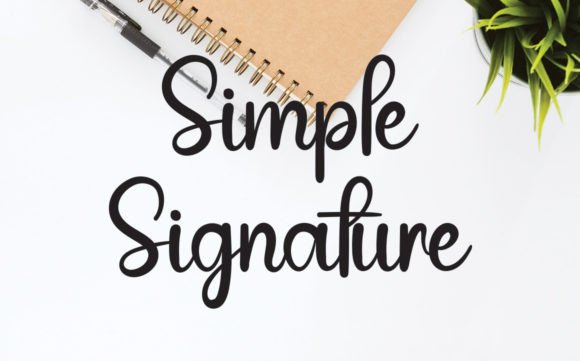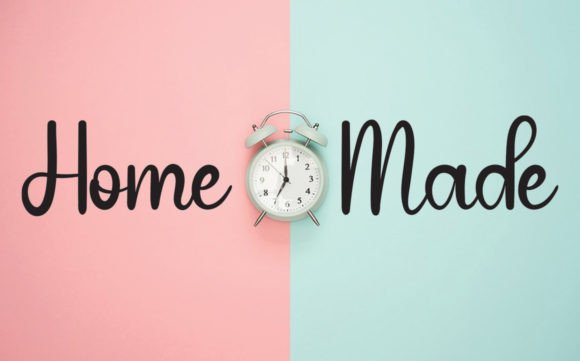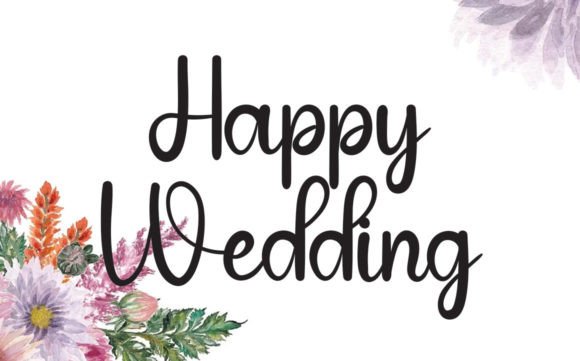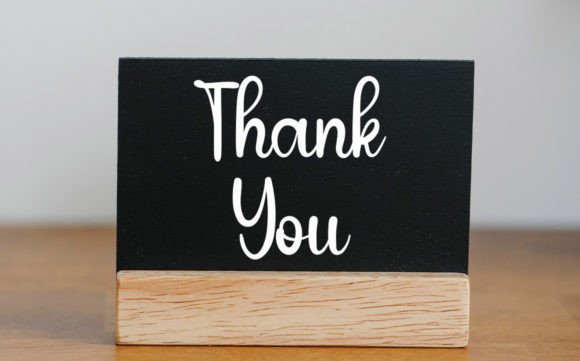
Discover the Enchantment of Black Pastel Font: Elevate Your Designs with a Touch of Romance
Are you on the hunt for a font that can add a dash of romance and whimsy to your designs? Look no further than the Black Pastel Font, an enchanting handwritten font that has captured the hearts of designers and crafters alike. With its versatile nature and wide spectrum of applications, this beautiful font is guaranteed to elevate your next project to new heights.
The Charm of Black Pastel Font
Black Pastel Font is a stunning example of a handwritten font that exudes elegance and sophistication. Its delicate strokes and intricate details make it perfect for a variety of design applications, from greeting cards and invitations to headlines and titles. Whether you’re working on a romantic project or simply want to add a touch of whimsy to your design, this font is sure to impress.
What Makes Black Pastel Font So Versatile?
One of the standout features of Black Pastel Font is its incredible versatility. This font can be used in a wide range of design applications, including:
- Greeting cards: Add a touch of romance to your Valentine’s Day cards, wedding invitations, or anniversary messages with this beautiful font.
- Headlines and titles: Use Black Pastel Font to create eye-catching headlines and titles for your blog posts, articles, or social media graphics.
- Branding and packaging: This font is perfect for creating custom branding and packaging for your business, especially if you’re in the wedding or beauty industry.
- DIY projects: Crafters will love using Black Pastel Font for their DIY projects, such as handmade cards, scrapbooking, and journaling.
Why Choose Black Pastel Font?
With so many fonts available, why choose Black Pastel Font? Here are just a few reasons why this font stands out from the rest:
- Unique and eye-catching: Black Pastel Font has a distinctive look that will set your designs apart from the crowd.
- Romantic and whimsical: This font adds a touch of romance and whimsy to any design, making it perfect for projects that require a personal touch.
- Easy to read: Despite its intricate details, Black Pastel Font is surprisingly easy to read, making it perfect for body text and captions.
- Highly versatile: As mentioned earlier, this font can be used in a wide range of design applications, making it a great addition to any designer’s toolkit.
Tips for Using Black Pastel Font
To get the most out of Black Pastel Font, here are a few tips to keep in mind:
- Pair with contrasting fonts: Pair Black Pastel Font with a contrasting font, such as a bold sans-serif font, to create visual interest and hierarchy.
- Experiment with colors: This font looks stunning in a range of colors, from soft pastels to rich jewel tones. Experiment with different colors to find the perfect combination for your design.
- Use it sparingly: While Black Pastel Font is beautiful, it can be overwhelming if used too much. Use it sparingly to create emphasis and add visual interest to your design.
In conclusion, Black Pastel Font is a beautiful and versatile handwritten font that is sure to add a touch of romance and whimsy to your designs. With its wide spectrum of applications and ease of use, this font is perfect for designers and crafters alike. Whether you’re working on a romantic project or simply want to add a touch of elegance to your design, Black Pastel Font is a great choice. So why not give it a try and see the magic for yourself?